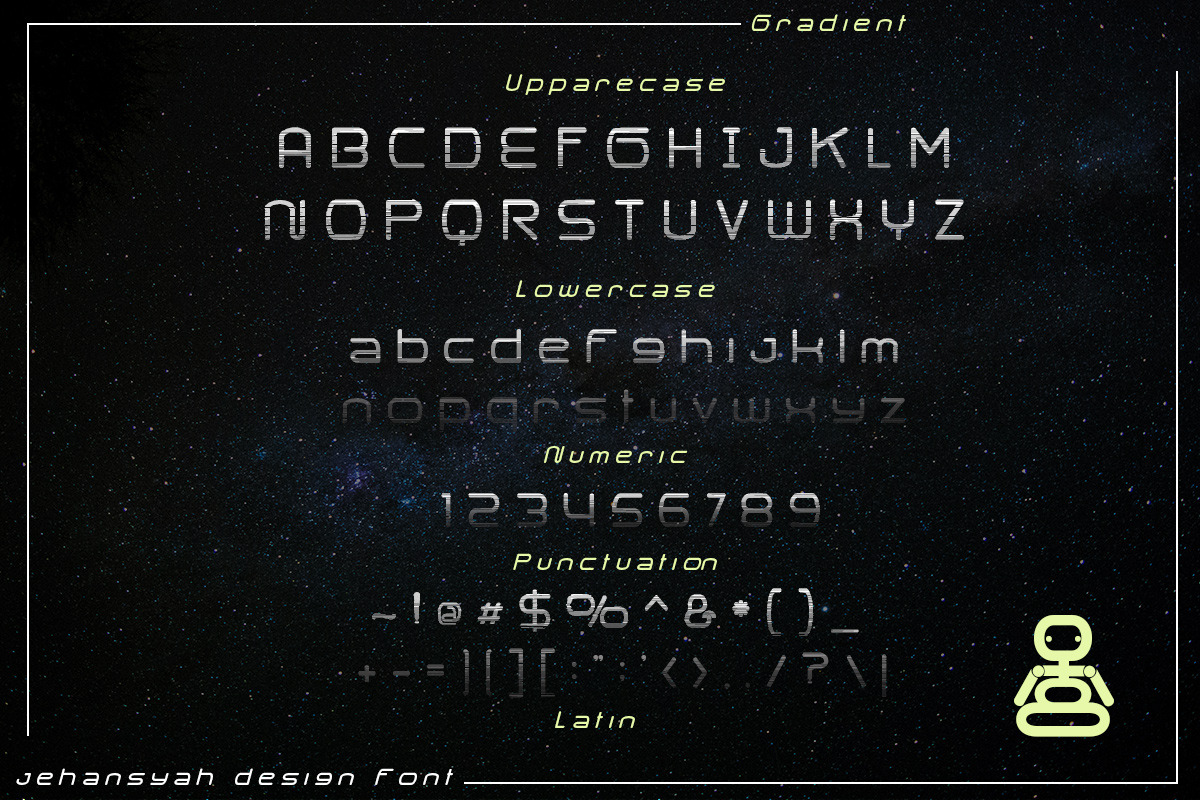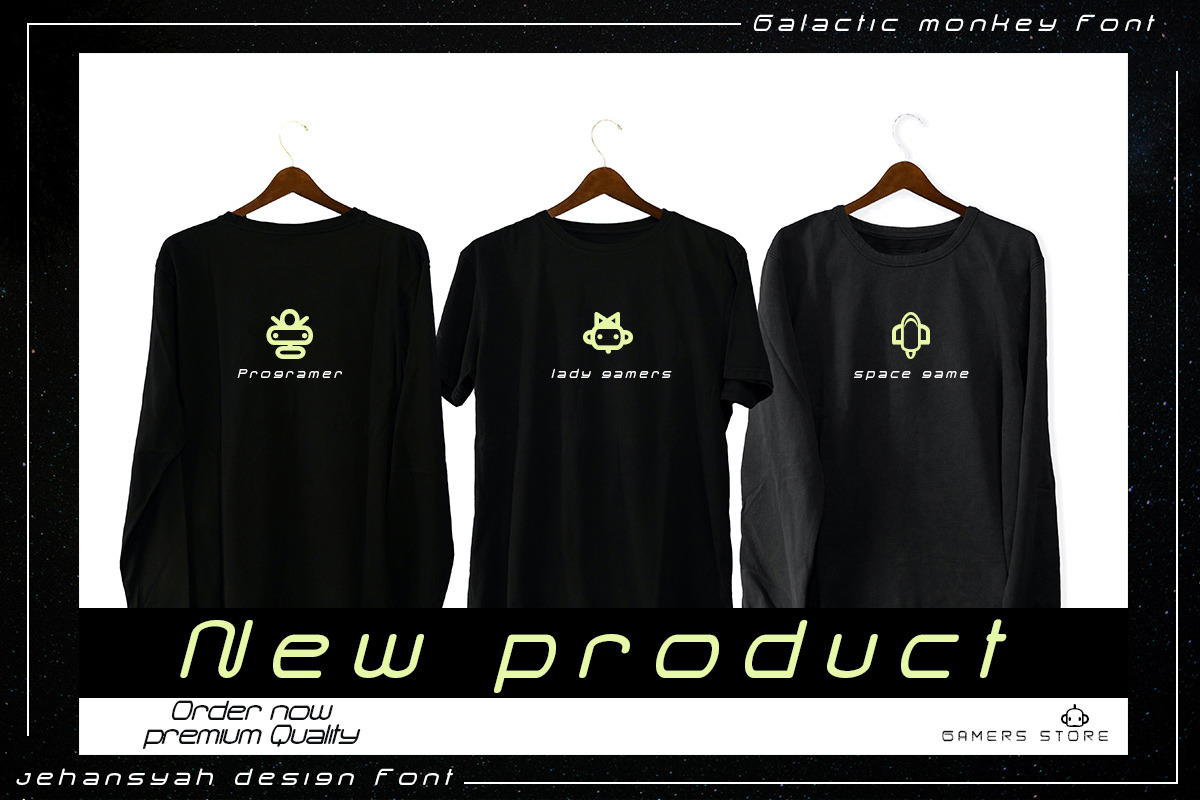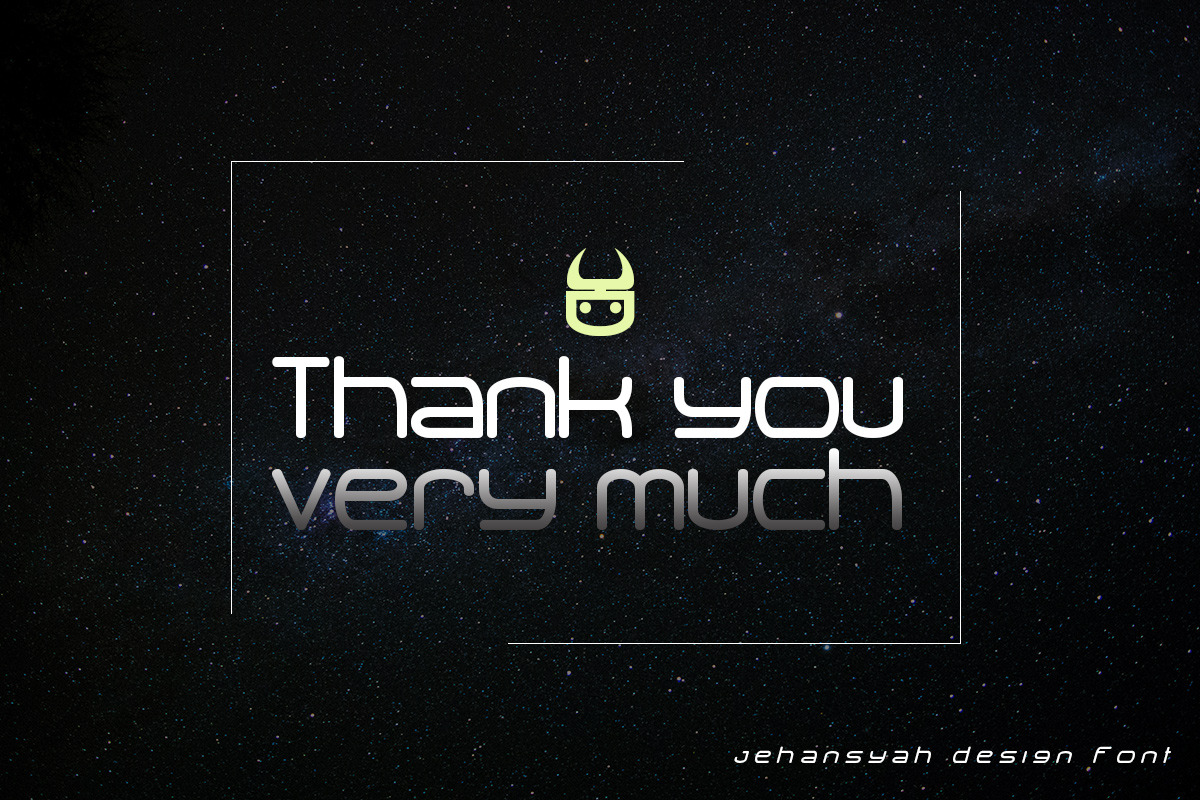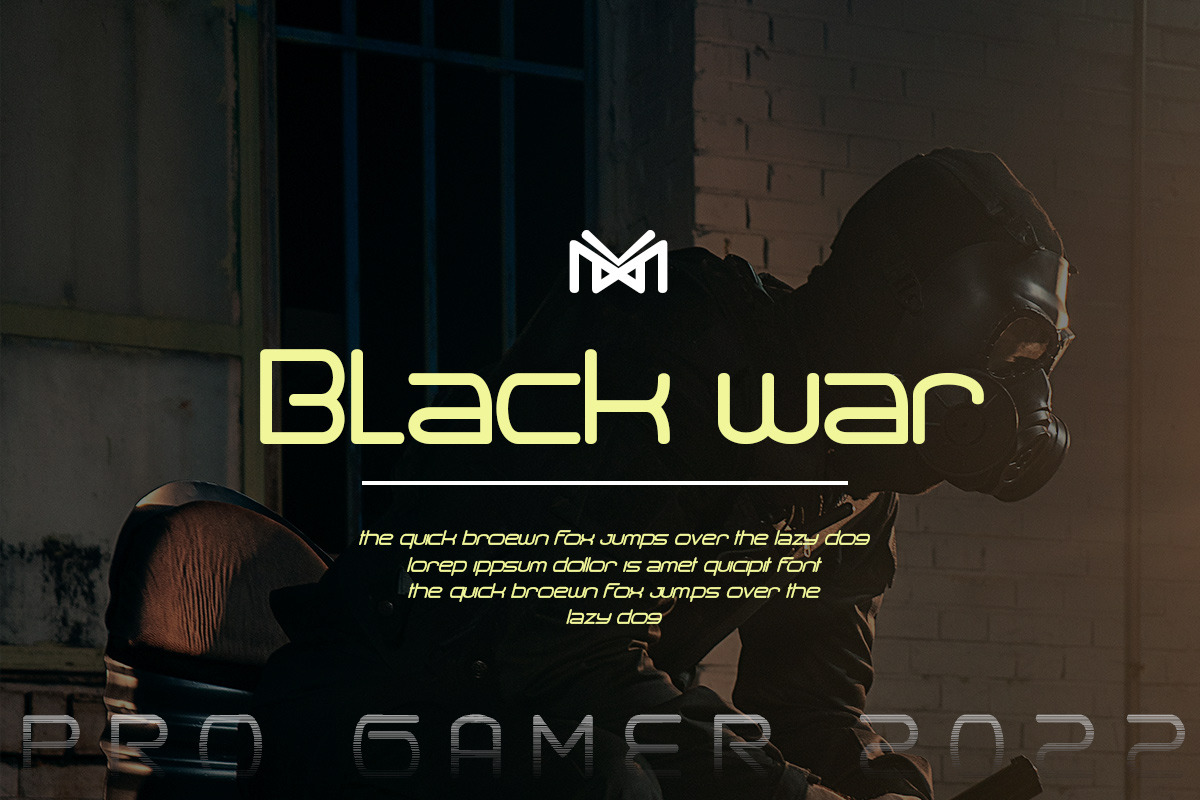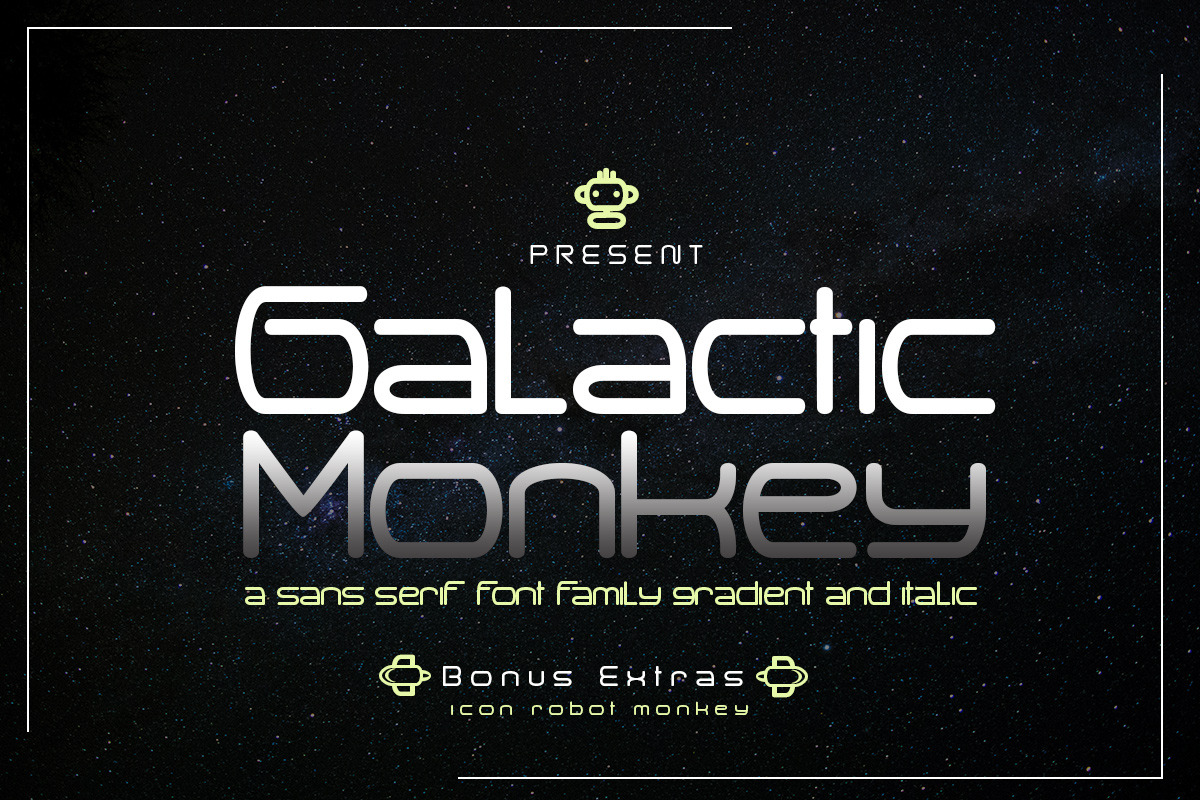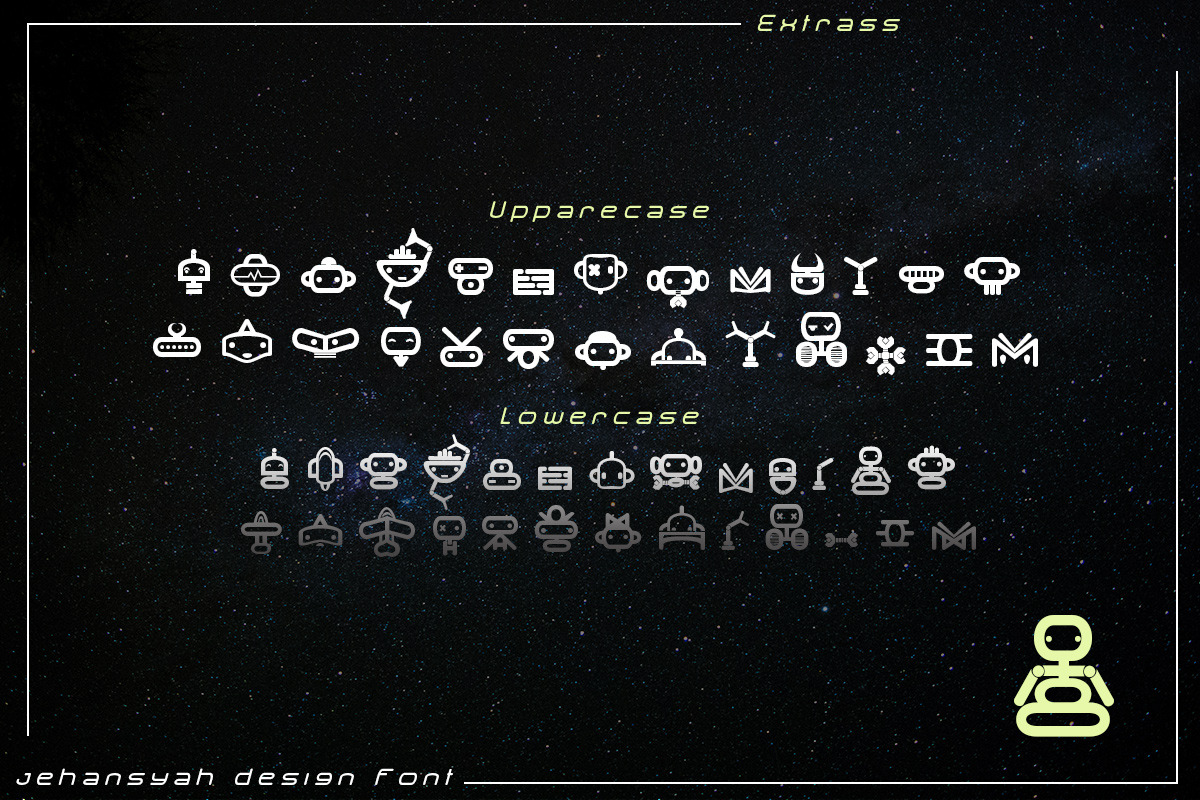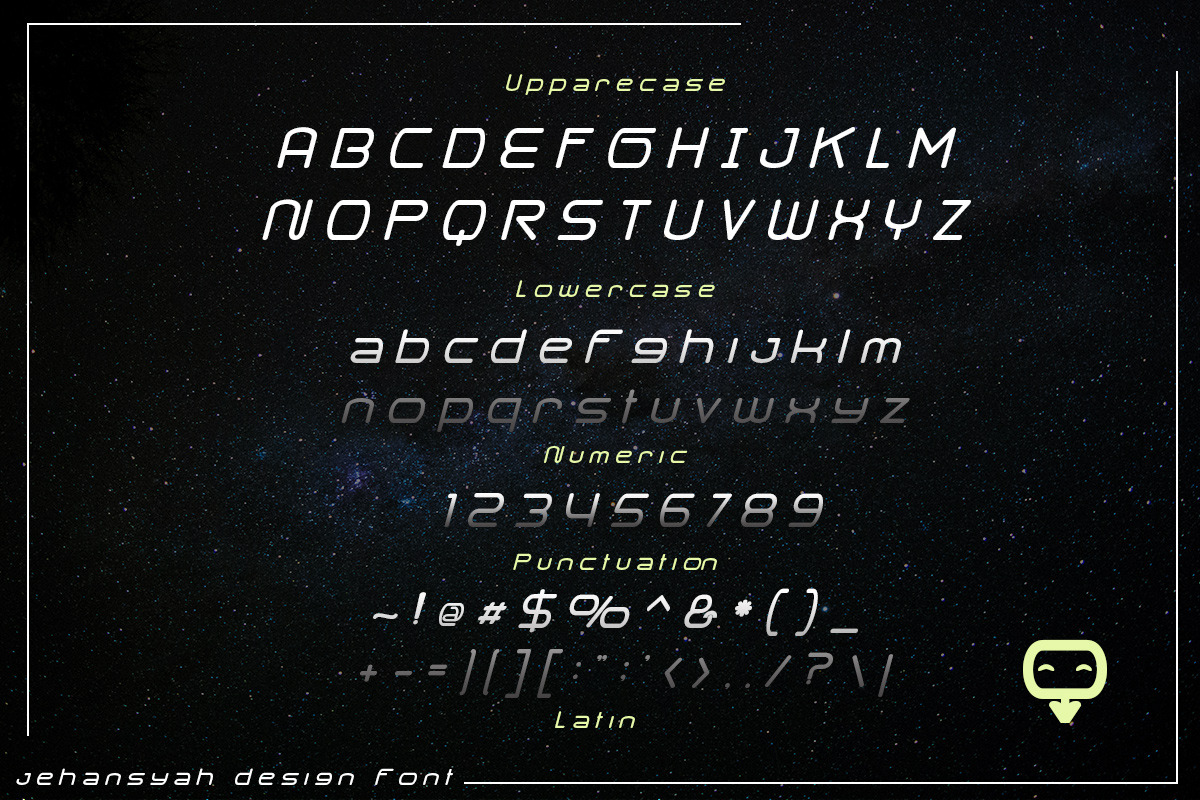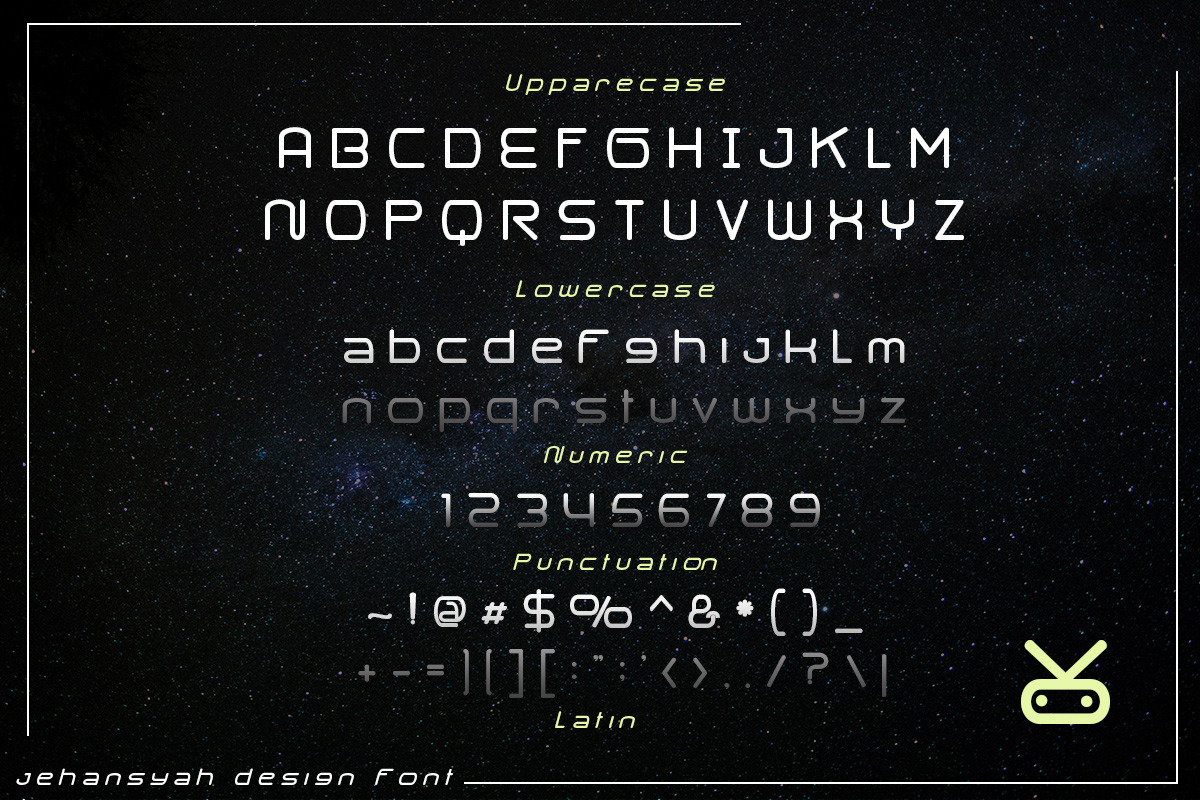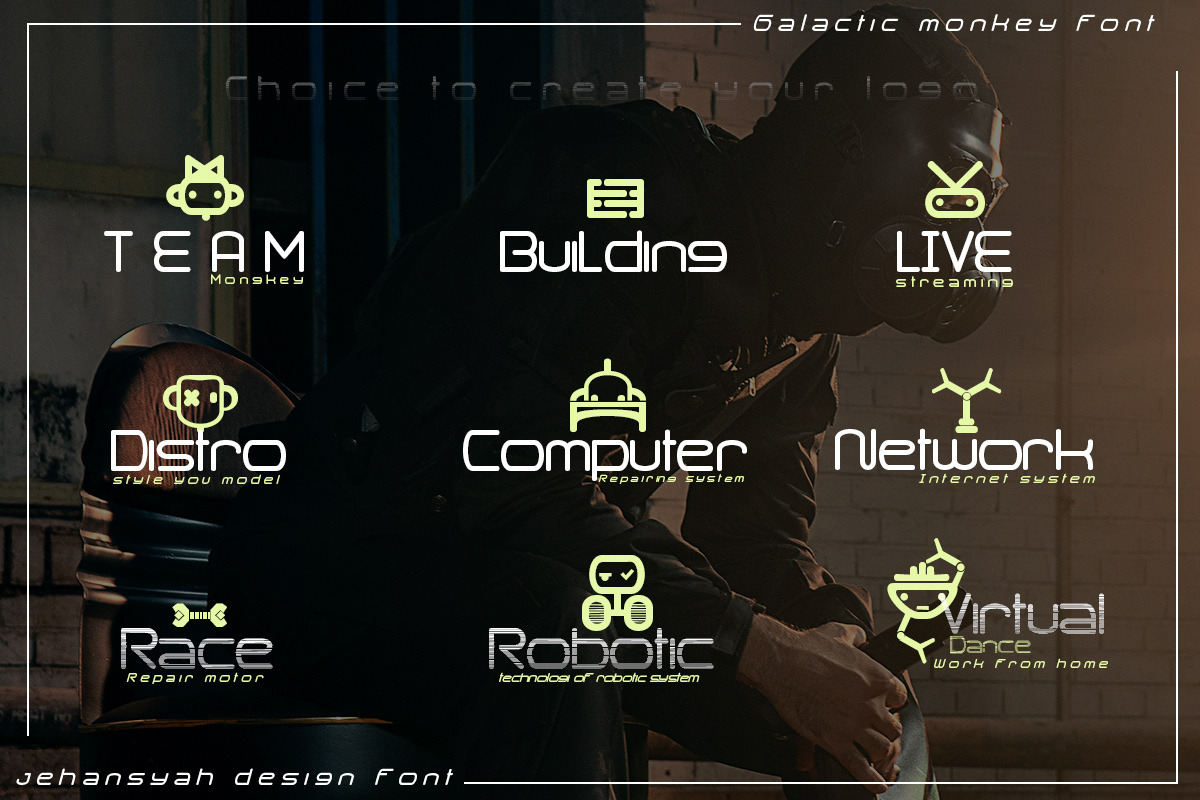
Galactic Monkey
Galactic Monkey Family This sans family font carries a strong and mighty theme, perfect for your design needs that want to look bold and authoritative, plus cute and modern icons, with several letter spacing options to make it look bolder, you can make it a logo as well as a symbol in your design. create your designs with this font, and it will take your designs to further modernity